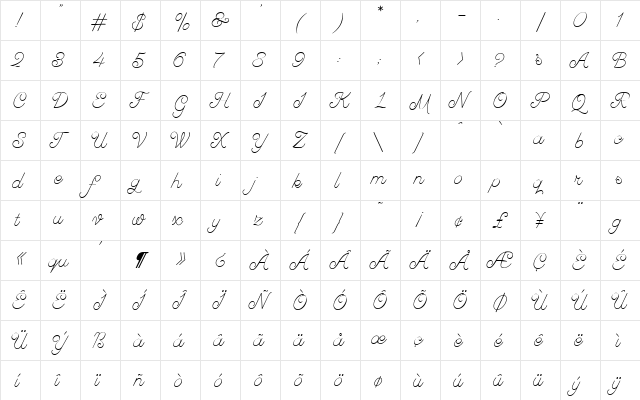
GreyhoundScript Regular
Design Context for GreyhoundScript Typeface
GreyhoundScript flows with the natural rhythm of handwritten lettering, making it ideal for designs that call for warmth and personal expression.
Font Pairing: Combine GreyhoundScript with a simple geometric sans for maximum contrast — the tension between flowing curves and clean structure is a classic typographic pairing.
Pro Tip: Pair GreyhoundScript with a clean sans-serif for supporting text. The contrast between fluid script and geometric structure creates an elegant typographic hierarchy.